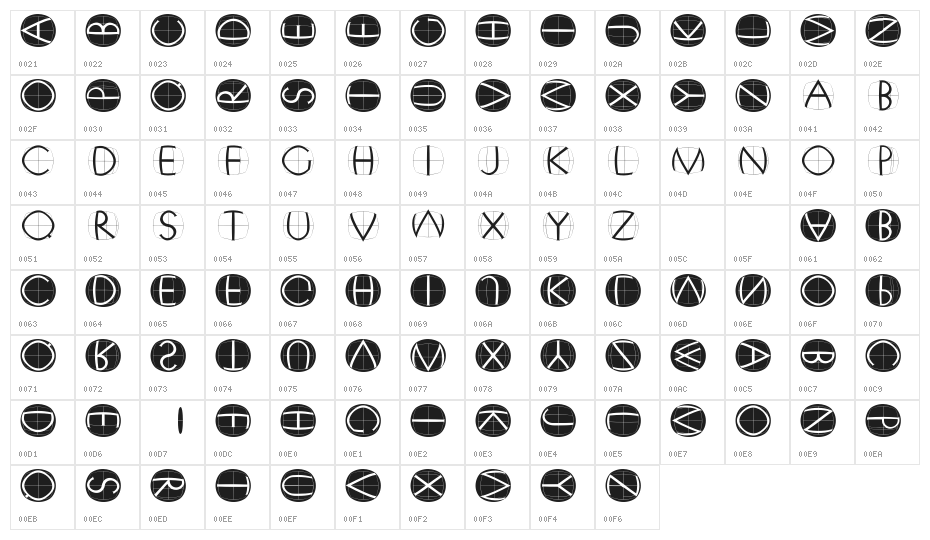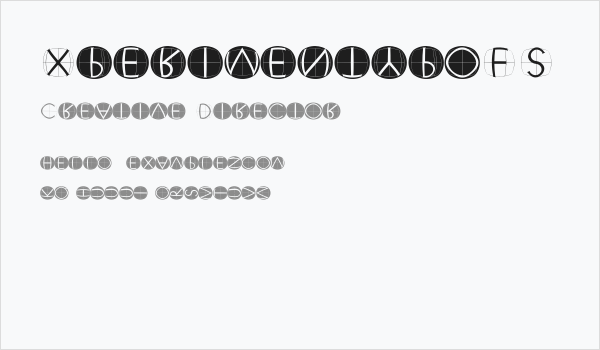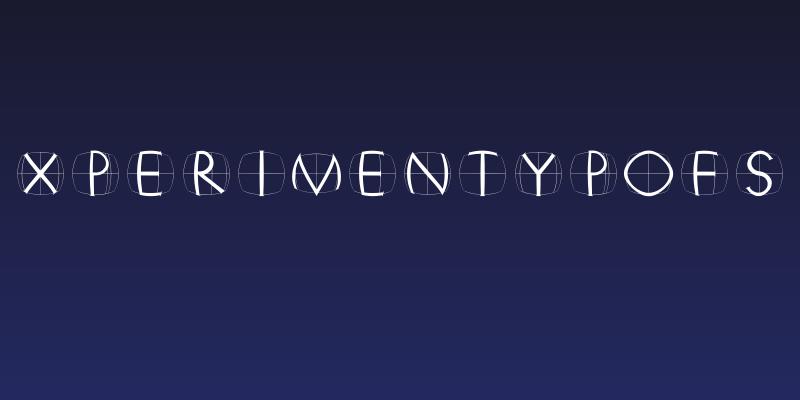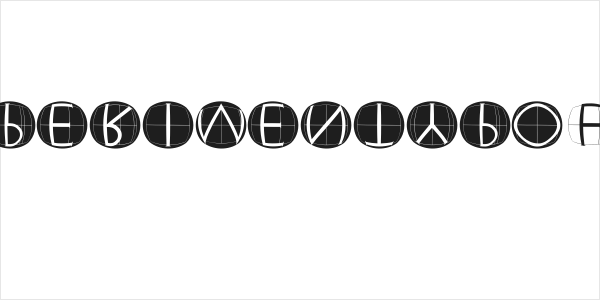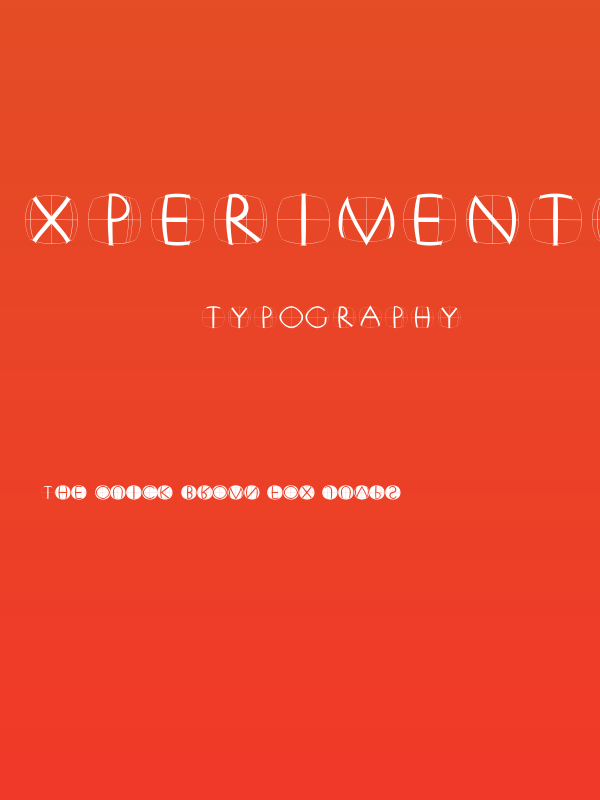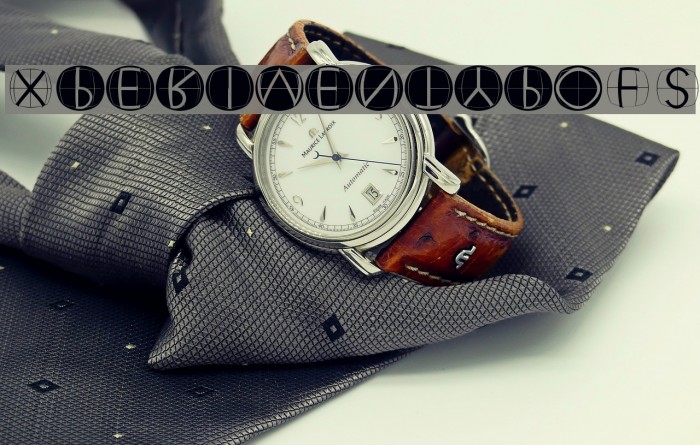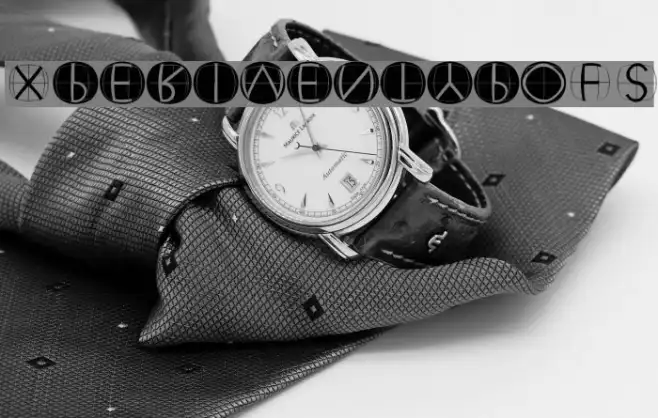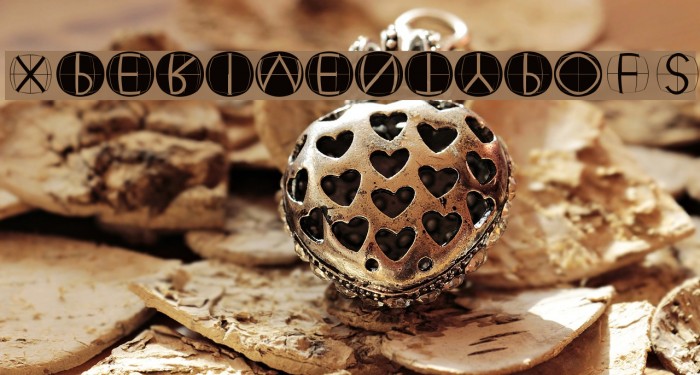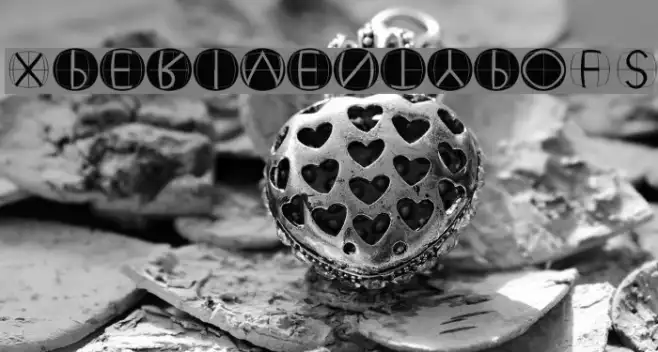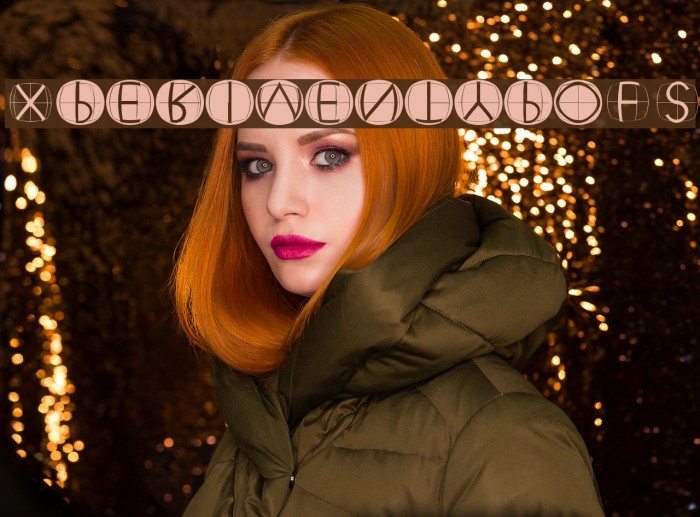
XperimentypoFS Font
XperimentypoFS Description
This font features a unique and experimental design where each character is enclosed within a circular boundary. The letters are constructed with geometric lines and shapes, creating a sense of modernity and abstraction. The use of both positive and negative space within the circles gives the font a dynamic and visually intriguing appearance. The uppercase and lowercase letters maintain a consistent style, with the geometric theme carried throughout. The numbers and special characters are also designed in the same circular, geometric fashion, ensuring uniformity across the entire character set.
| Use Case | Logos, Posters, Creative Projects |
| Proposed Projects | Ideal for futuristic designs, tech branding, and creative posters. |